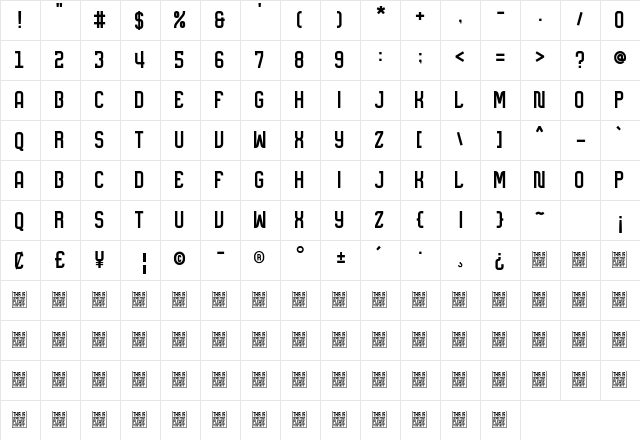
Berryl Sans DEMO font Regular
Design Context for Berryl Sans DEMO font Typeface
Berryl Sans DEMO font takes a measured approach to typography — its balanced proportions and neutral character make it a reliable workhorse for both digital and print work.